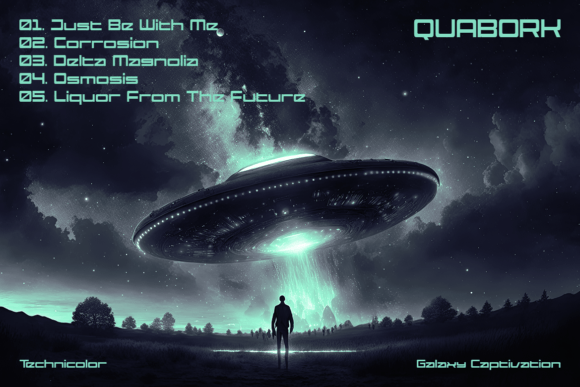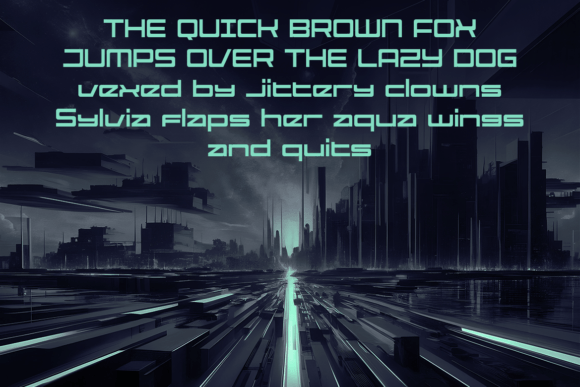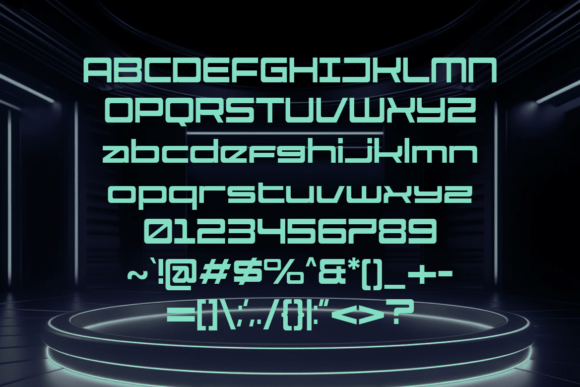
Introduction to Quabork Font
Jack into the future with Quabork: a square techno font.
The year is 30XX Neon lights pulse.
Key Features of Quabork Font